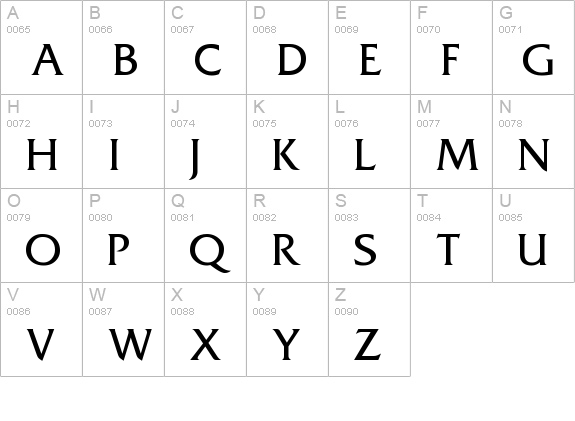
Friz Regular is the standard, neutral variant in the Friz typeface family \xE2\x80\x94 well suited to general body text, paragraphs, and standard typographic work.
Friz Regular font is a versatile and modern typeface that exudes sophistication and elegance. Its clean lines and balanced proportions make it suitable for a wide range of design projects, from branding to editorial design. With its timeless appeal and classic yet contemporary aesthetic, Friz Regular font is sure to elevate any design it is used in. And the best part? Friz Regular font is available for free download at FontsMarket.com. This means that you can easily access this high-quality font without any cost, making it a valuable addition to your font library. Don't miss out on the opportunity to enhance your designs with the beauty and versatility of Friz Regular font – download it today and see the difference it can make!